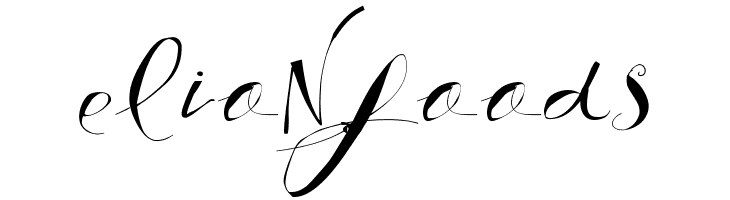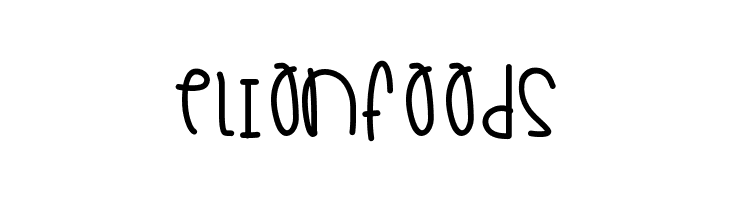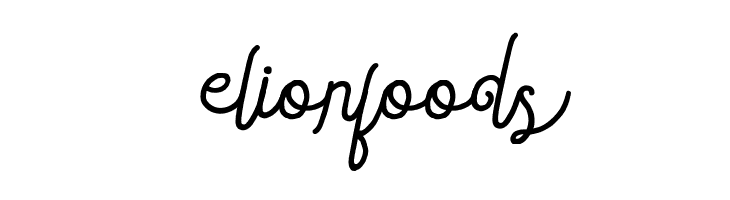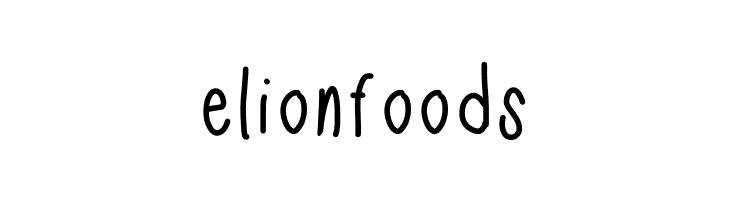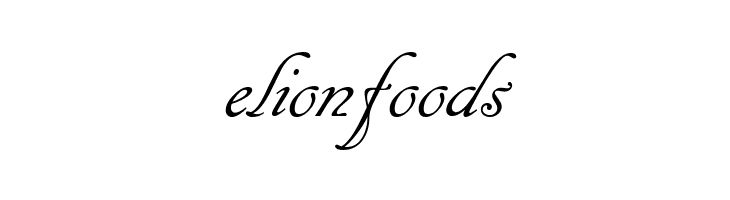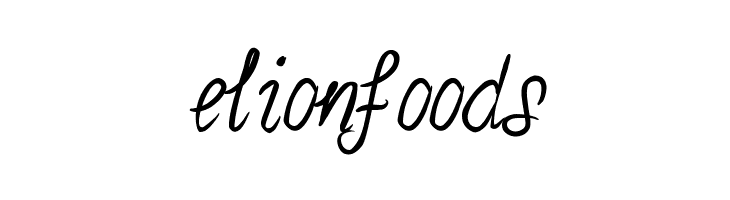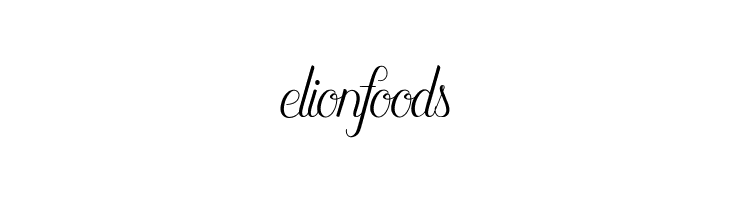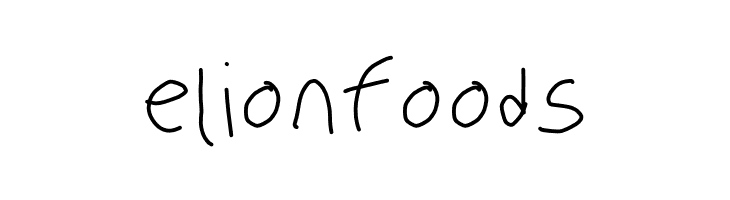
An elegant script font with intricate swirls and a modern calligraphic style.
A playful, handwritten font with a whimsical and friendly style.
A playful and casual handwritten font with a whimsical and dynamic style.
A playful, handwritten font with a casual and friendly vibe.
A whimsical cursive font with playful loops and swirls.
A casual, handwritten font with a playful and approachable style.
A romantic, cursive script font with elegant, flowing letters.
A casual, handwritten font with a playful and informal style.